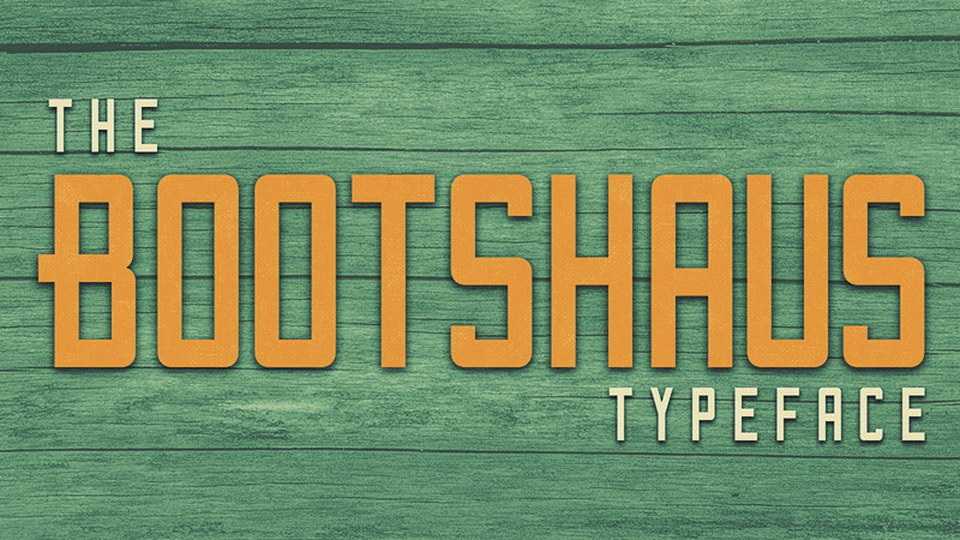
Download Bootshaus font, a blocky and bold geometric all caps sans serif typeface with inner angles and outer curves. Bootshaus is perfect for titles and posters.
Designer: Felix’s Foundry